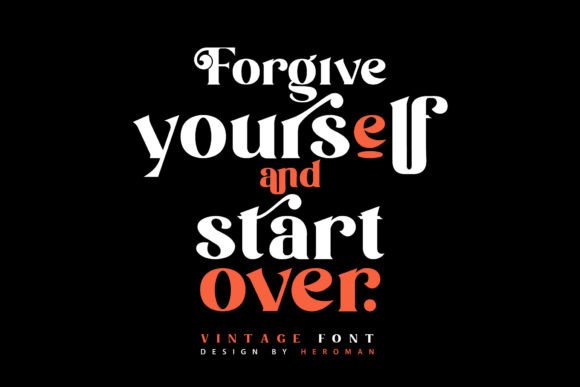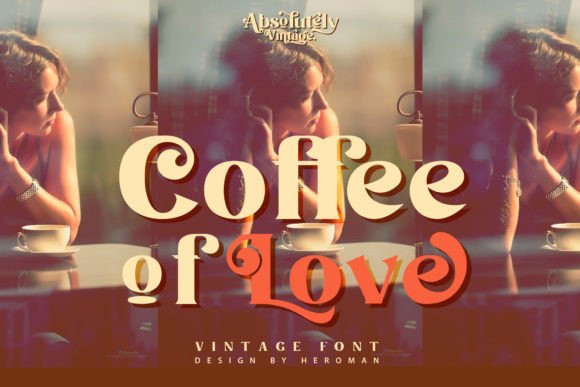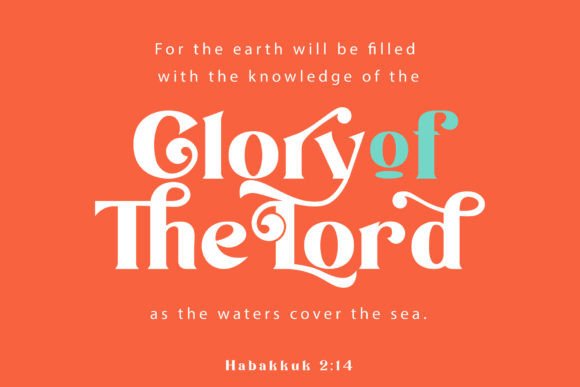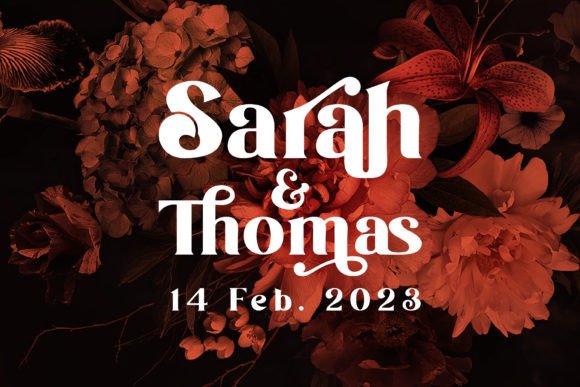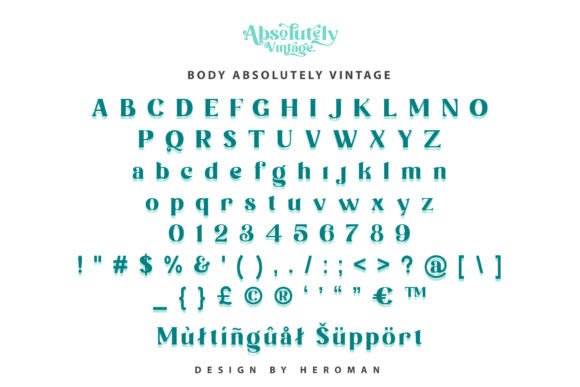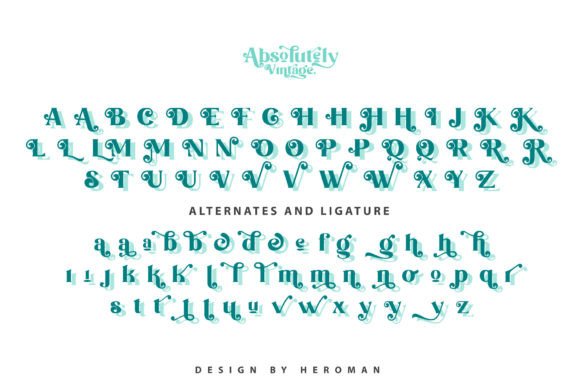
The Designer’s Delight: Absolutely Vintage Font
Have you ever been in the middle of a design project, and suddenly, you’re stuck on finding the perfect font? I recall a particularly frustrating experience when I was working on a vintage-themed branding project for a client. The design was almost complete, but the font I was using just wasn’t giving me that authentic, nostalgic feel I was going for. That’s when I stumbled upon the Absolutely Vintage font, and it was love at first sight! ✨
Let’s dive into what makes Absolutely Vintage a standout in the world of display fonts.
• ✨ Unique and Distinctive Style: This font has a one-of-a-kind charm that can elevate any design project.
• ✅ PUA Encoded: With PUA encoding, accessing glyphs and ligatures is a breeze, making your design process smoother.
• 🎨 Versatility: Whether you’re working on a vintage-themed project, a modern design with a retro twist, or anything in between, Absolutely Vintage can adapt.
While Absolutely Vintage is a fantastic font, there are a few things to keep in mind:
• ⚠️ Legibility at Small Sizes: Like many display fonts, Absolutely Vintage may lose legibility when used at very small sizes. It’s best used for headlines or larger text.
• 🤔 Pairing with Other Fonts: Due to its distinctive style, you may need to experiment with font pairings to find the perfect match for your design.
While the exact inspiration behind Absolutely Vintage remains a mystery, it’s clear that the designer aimed to capture the essence of vintage typography with a modern twist. Imagine a designer, surrounded by vintage books and posters, seeking to bottle the charm of the past into a font that’s both nostalgic and fresh.
PUA (Private Use Area) encoding allows for the inclusion of additional characters and glyphs beyond the standard Unicode range. This means you can access unique characters and ligatures in Absolutely Vintage, making your designs more dynamic and interesting.
While Absolutely Vintage is a beautiful font, it’s primarily designed as a display font. Its legibility at smaller sizes may be limited, making it less suitable for body text. It’s best used for headlines or larger text elements.